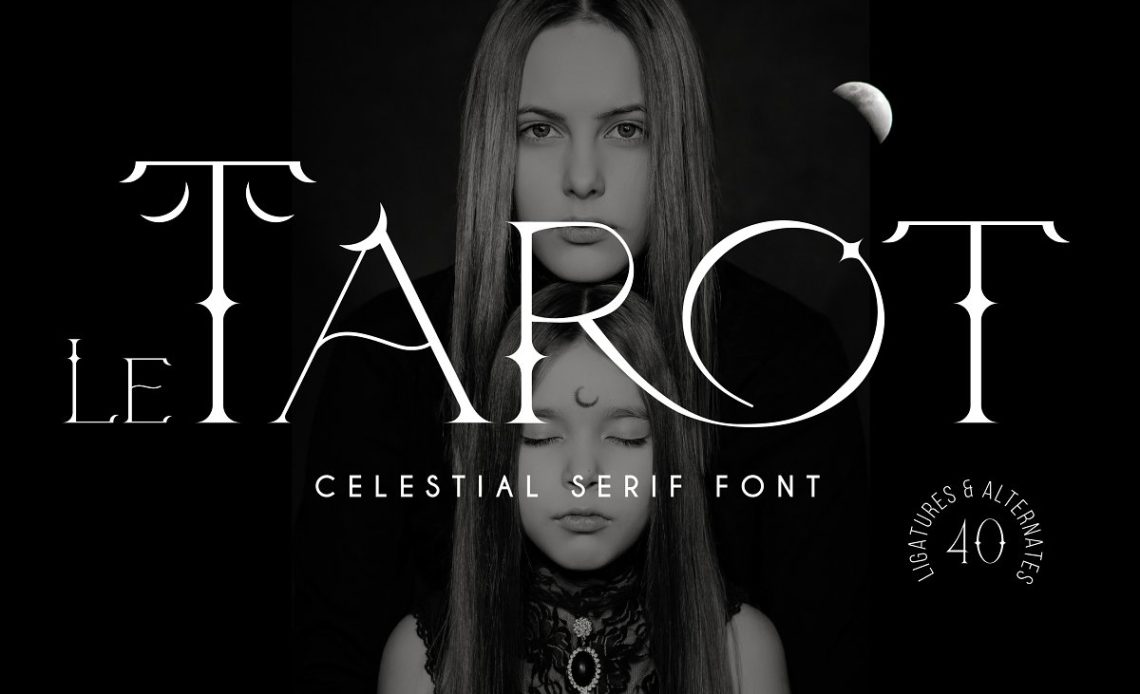
Are you looking for a font that can perfectly capture the mystical and magical theme of Halloween? Look no further than Le Tarot - Celestial Serif Font! Created by Victoria Strukovskaya, this modern serif font is decorated with celestial motifs such as the moon and stars, making it the perfect choice for astrology, mysticism, spirituality, witchcraft, magic, and esotericism design themes.
Le Tarot also includes stylistic alternates and ligatures for symbols such as A, D, G, J, M, O, T, U, W, as well as ligatures for Ka, La, Ma, OO, Ra, aa, am, ka, ko, la, lo, ma, mm, mo, oo, ra, rm, ro, rr, tt, xa, and za.